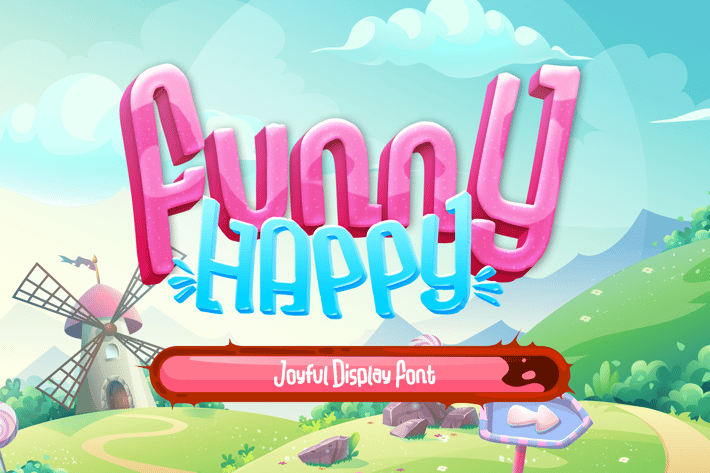
Funny Happy Joyful Display Font
Funny Happy font, is our new font suitable for mockup or any work.
Great for
Sticker, Invitation Card, Brochure, etc.